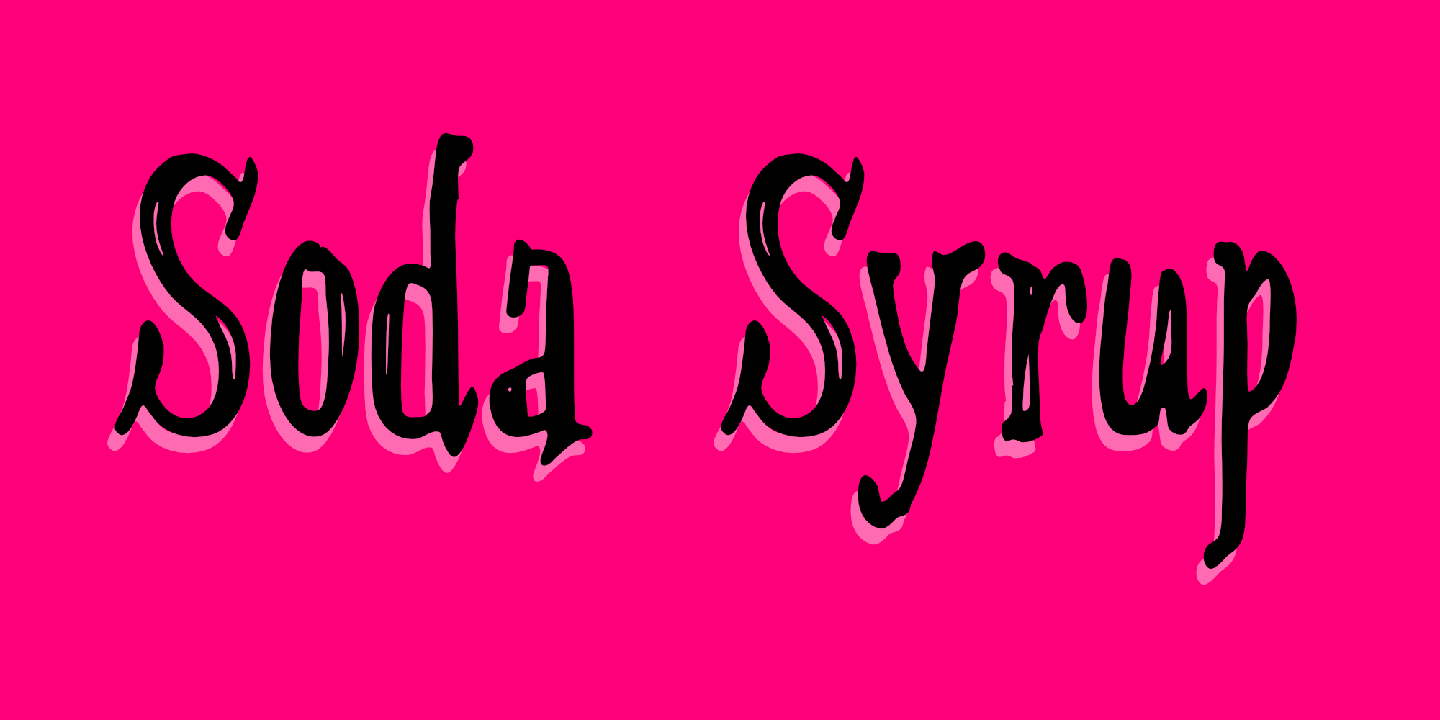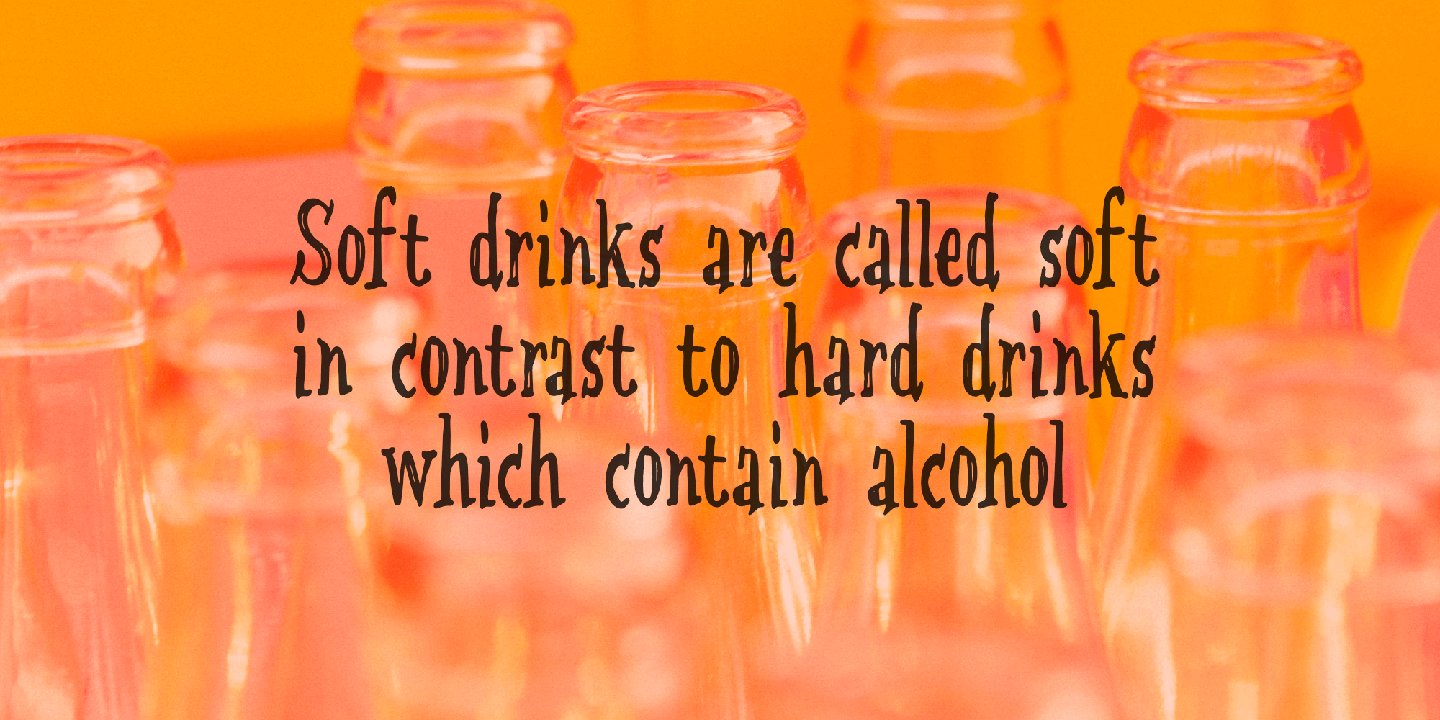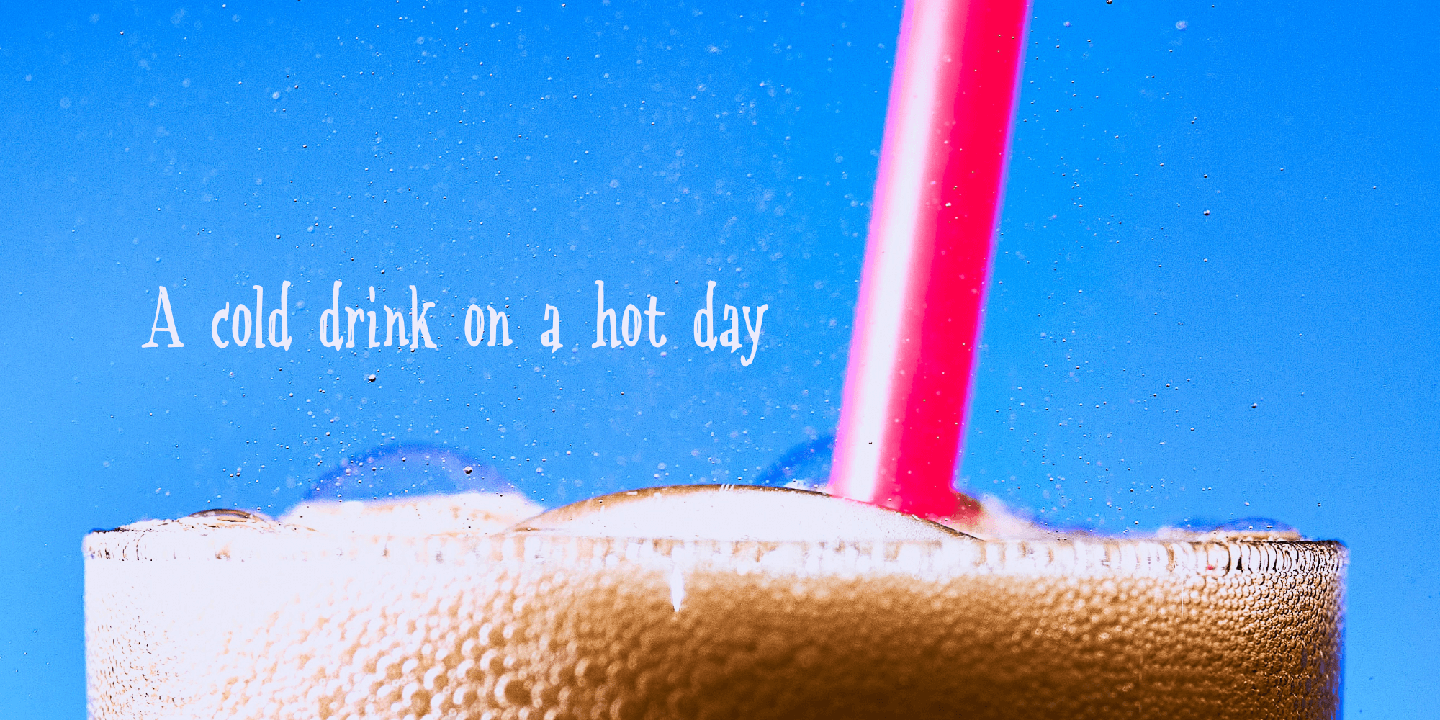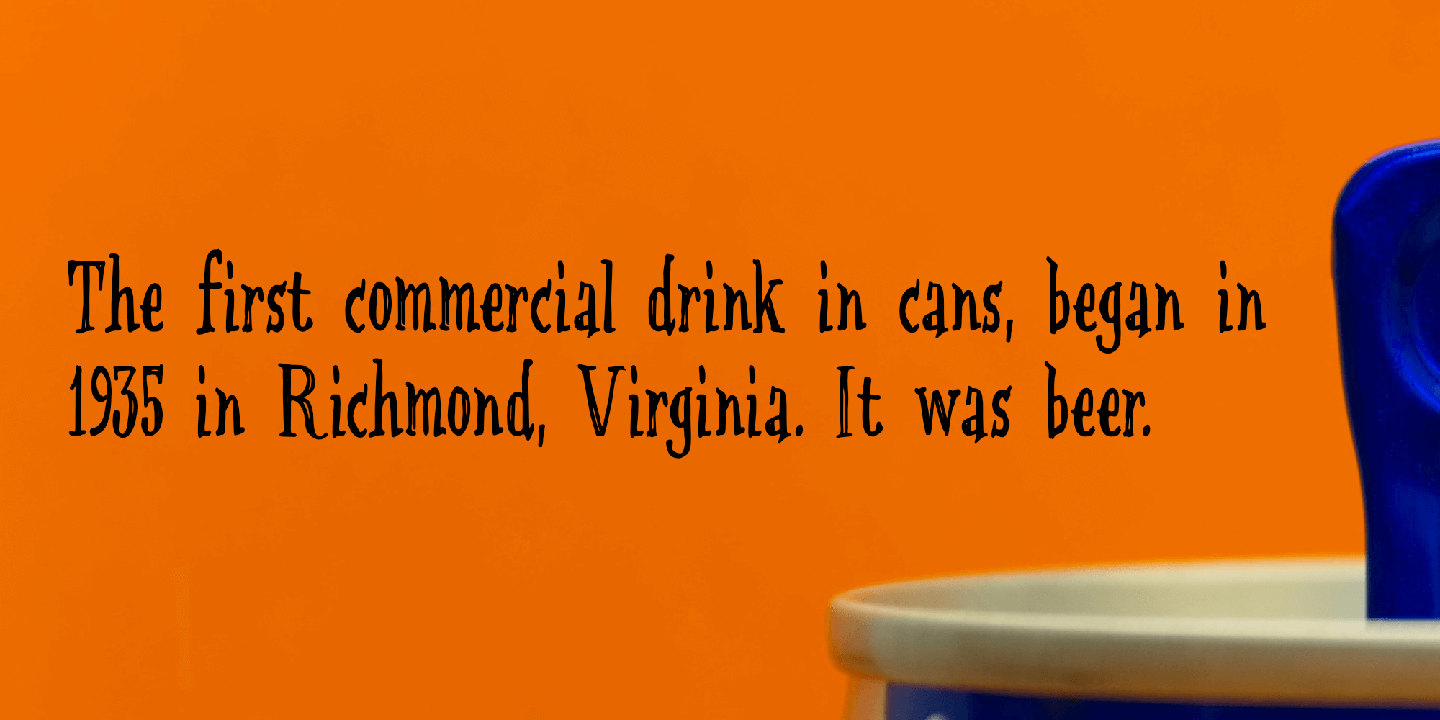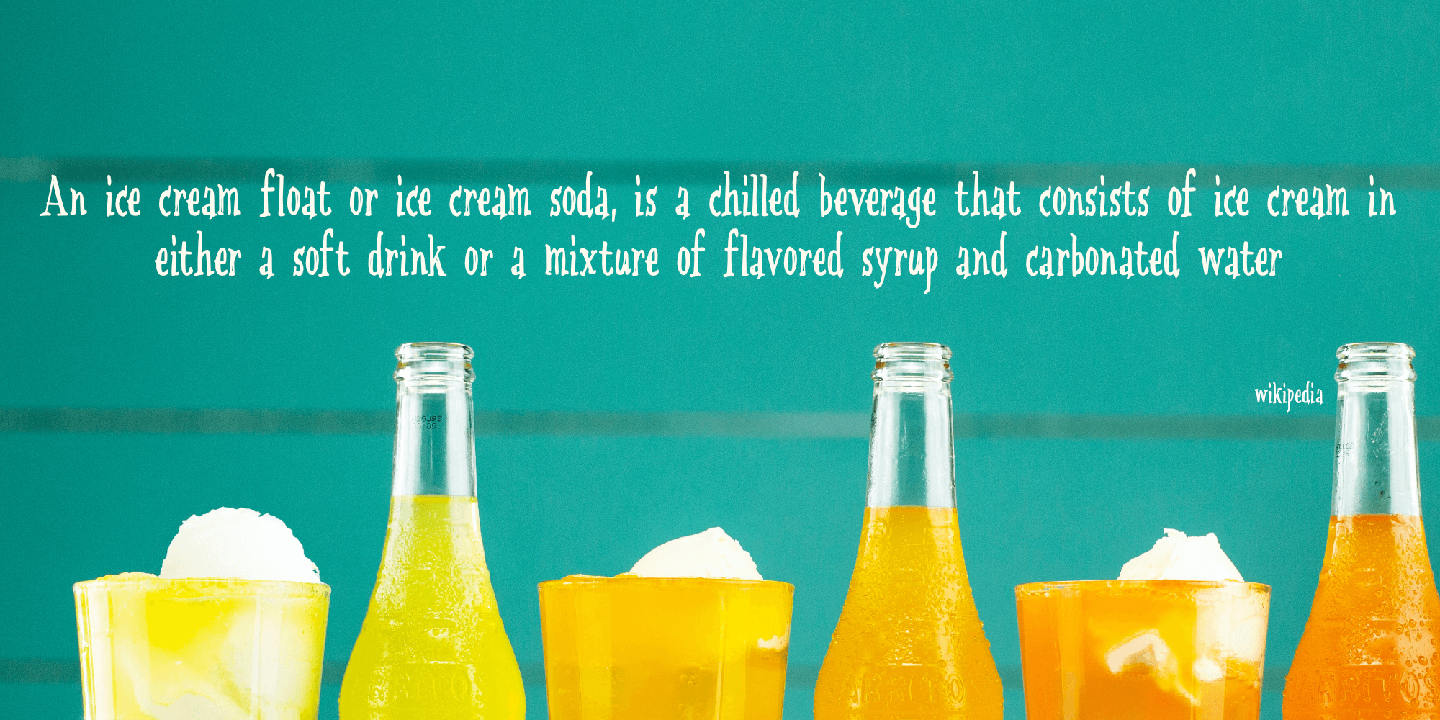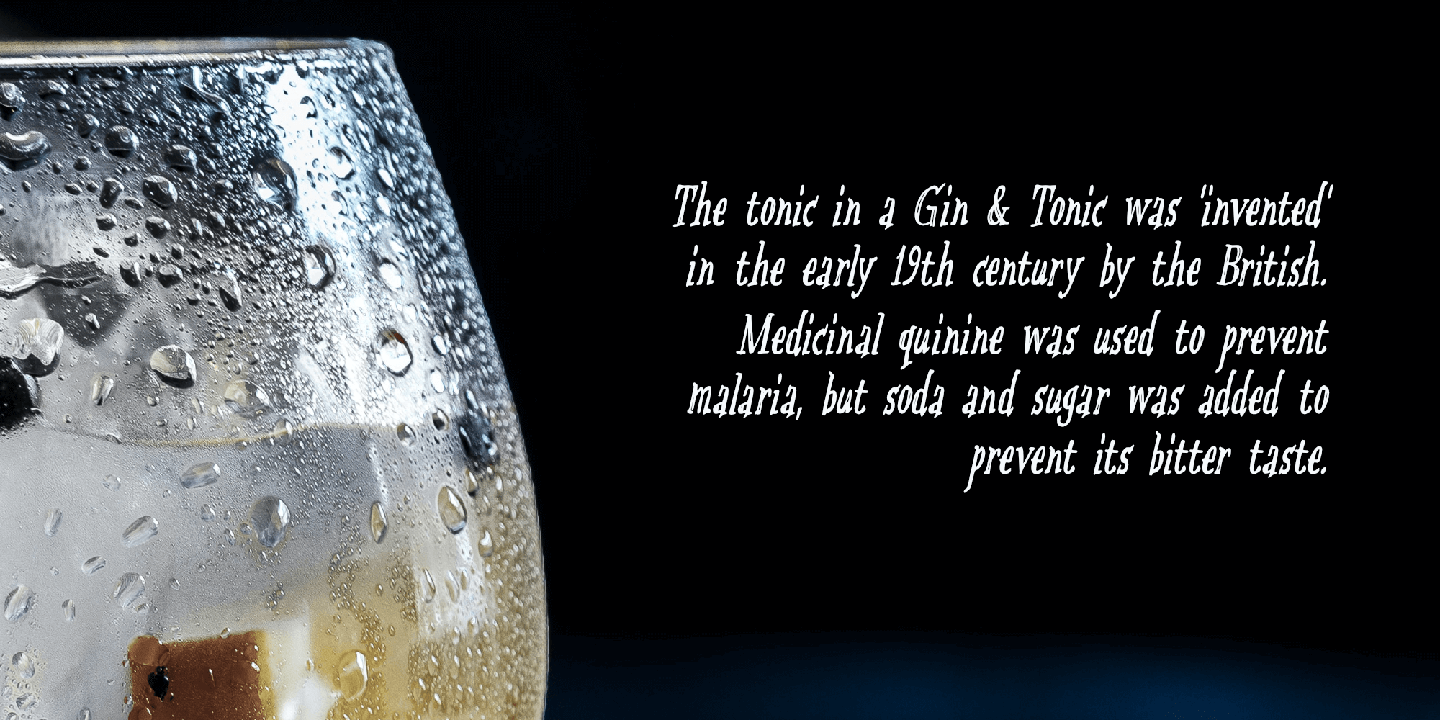
Soda Syrup
At home, we don't drink soft drinks at all. Maybe sometimes, when one of the kids has a birthday party, but we normally don't have a stash of the stuff. We have cordial, or, as we call it in Holland: limonadesiroop ('Lemonade Syrup'). There you go, another font name explained!
Soda Syrup was made with a marker pen and a lot of paper! It comes with a frizzy, sticky goodness to give your designs that extra kick.